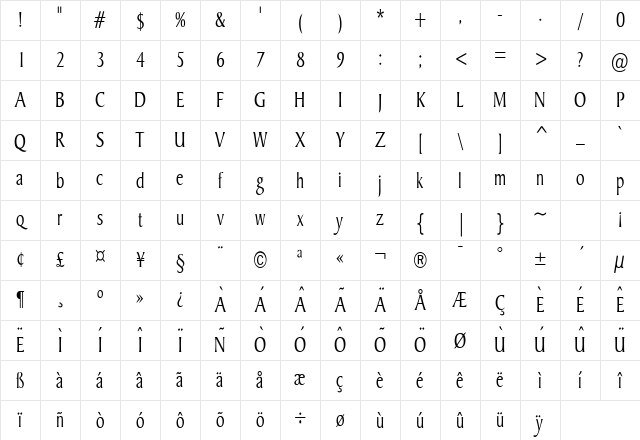
Barrett Thin Normal
Design Context for Barrett Thin
Barrett Thin is a composed and adaptable typeface that performs quietly and consistently across a wide range of design contexts. Its slender proportions lend an understated elegance to any composition.
Pro Tip: Use Barrett Thin in both headline and body roles to test its range before committing to a single application.